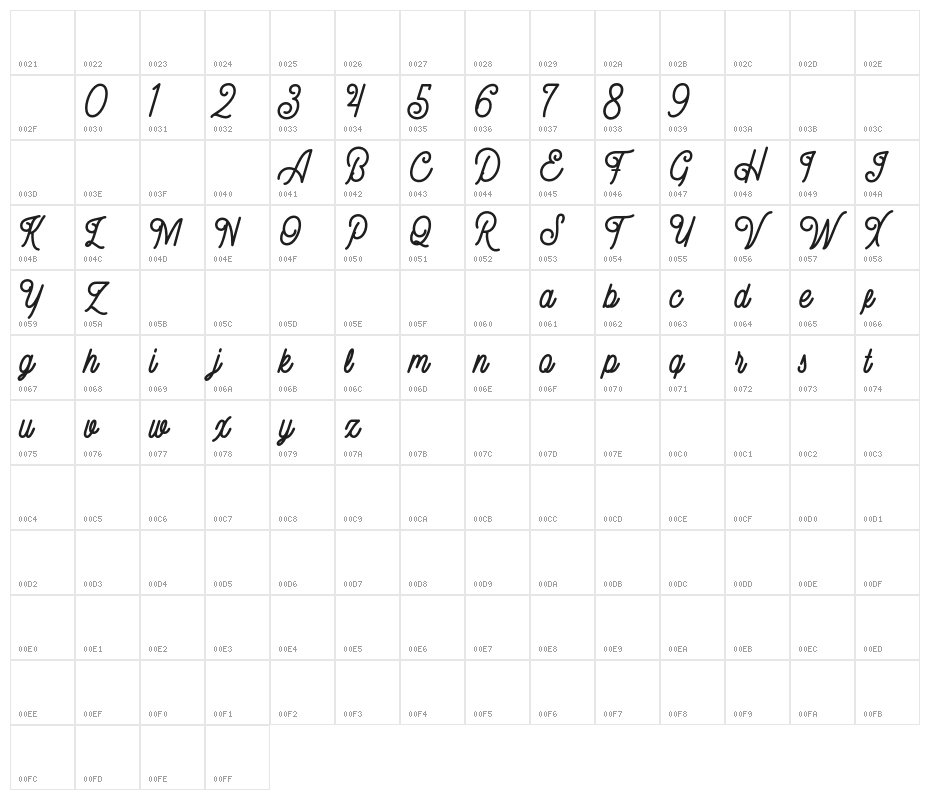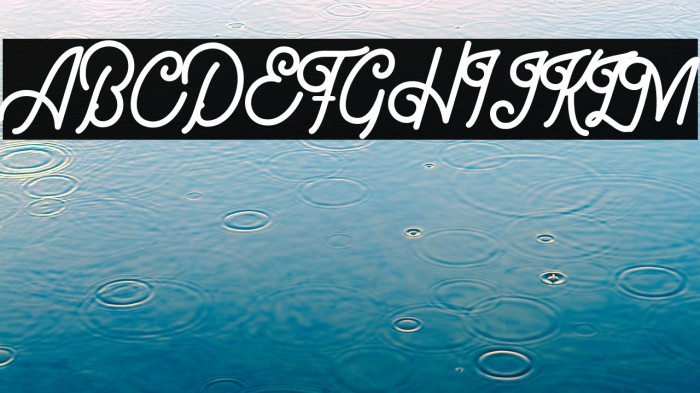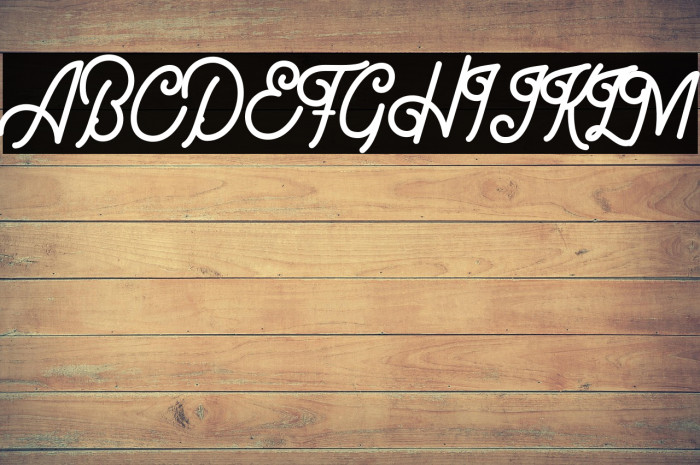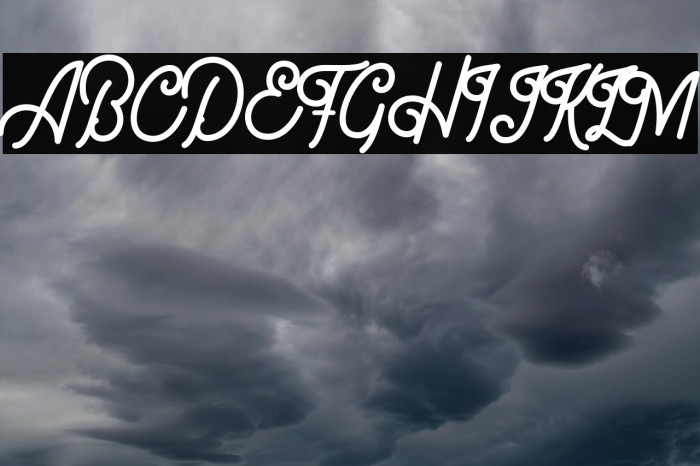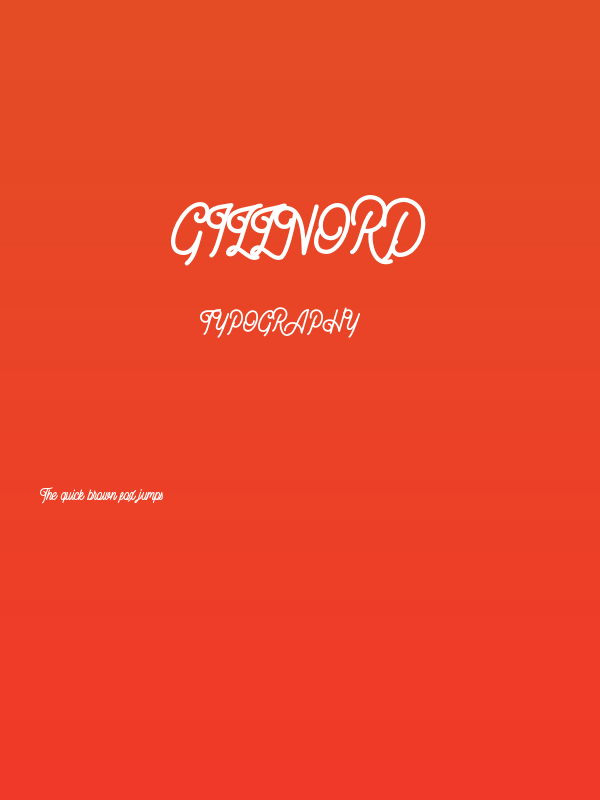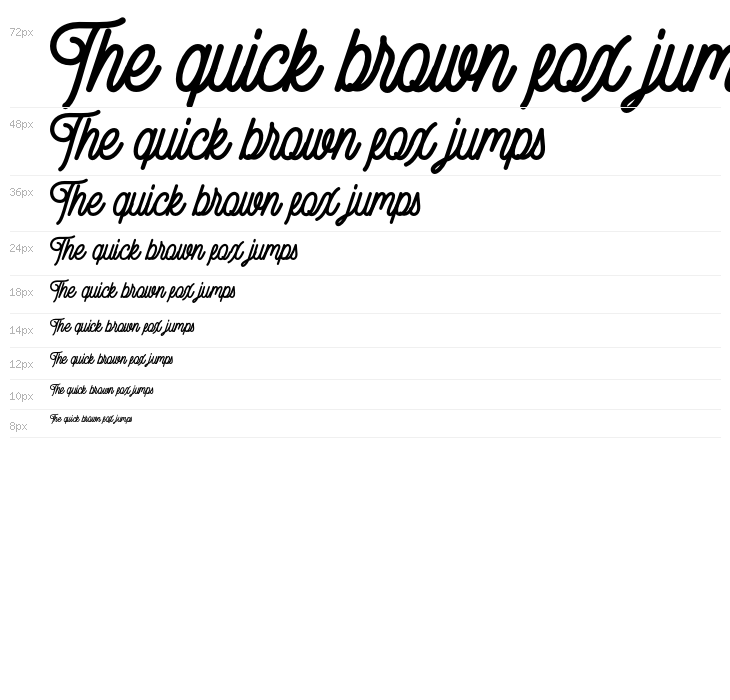
Gillnord Font
Gillnord Description
This font features an elegant and flowing script style, characterized by its smooth, cursive letterforms that convey a sense of sophistication and grace. The uppercase letters are distinctively ornate, with sweeping curves and loops that add a decorative flair. The lowercase letters maintain a consistent flow, enhancing readability while retaining the font's artistic appeal. Numbers and special characters are designed to match the overall aesthetic, ensuring a cohesive look across all text elements. The font's design is ideal for projects that require a touch of elegance and refinement.
Overall StyleElegant, Decorative
Use CaseHeadlines, Invitations, Branding
Proposed ProjectsIdeal for wedding invitations, elegant branding, greeting cards, and high-end product packaging.